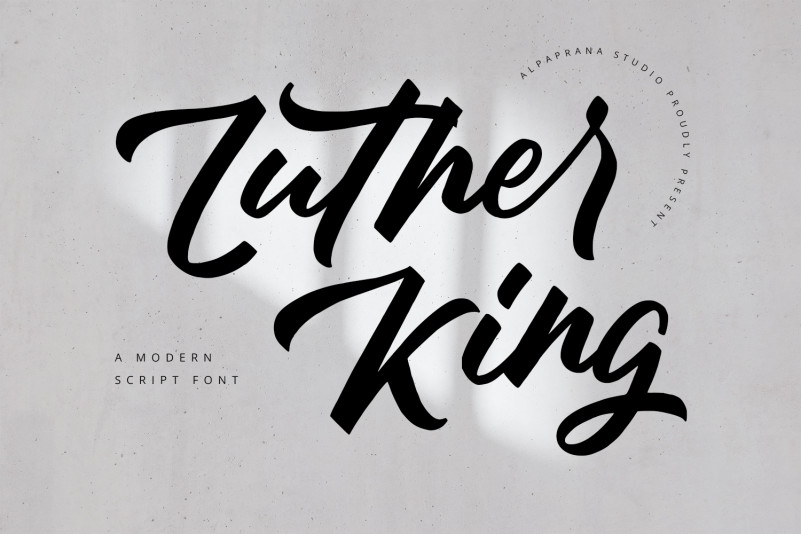
Luther King Font
Luther King Script Font is a modern script font with natural and modern feels. It will be perfectly used for Branding, Logo Design, Lettering, Logotype, Clothing, Poster, magazine, packaging, posters, shopping bags, t-shirts, book covers, photography, special events and other design project.